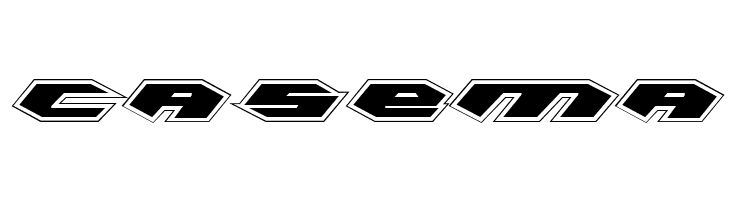
Fasthine Brooks DEMO VERSION Italic Font
- Font: Fasthine Brooks DEMO VERSION Italic
A bold, futuristic font with sharp angles and a dynamic, geometric style.